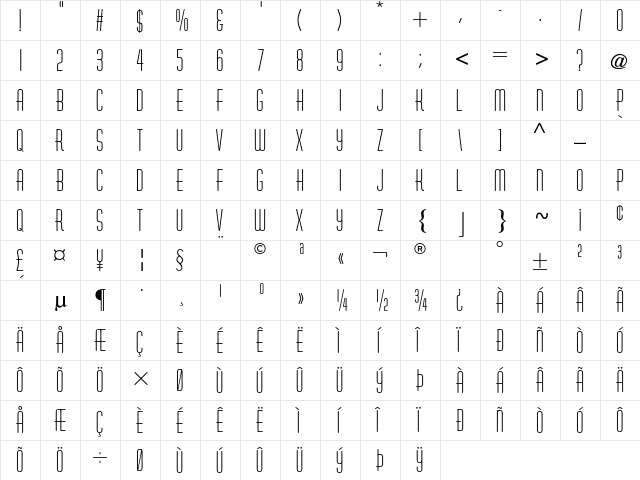
Aldous Vertical AT Regular
Design Context for Aldous Vertical AT Typeface
Aldous Vertical AT takes a measured approach to typography — its balanced proportions and neutral character make it a reliable workhorse for both digital and print work.